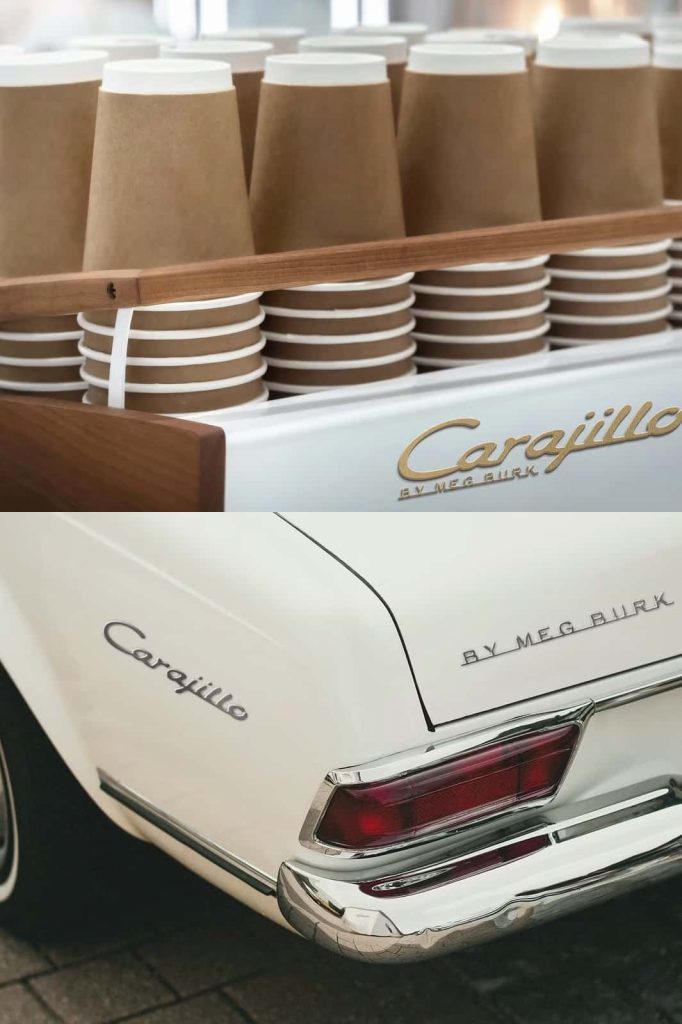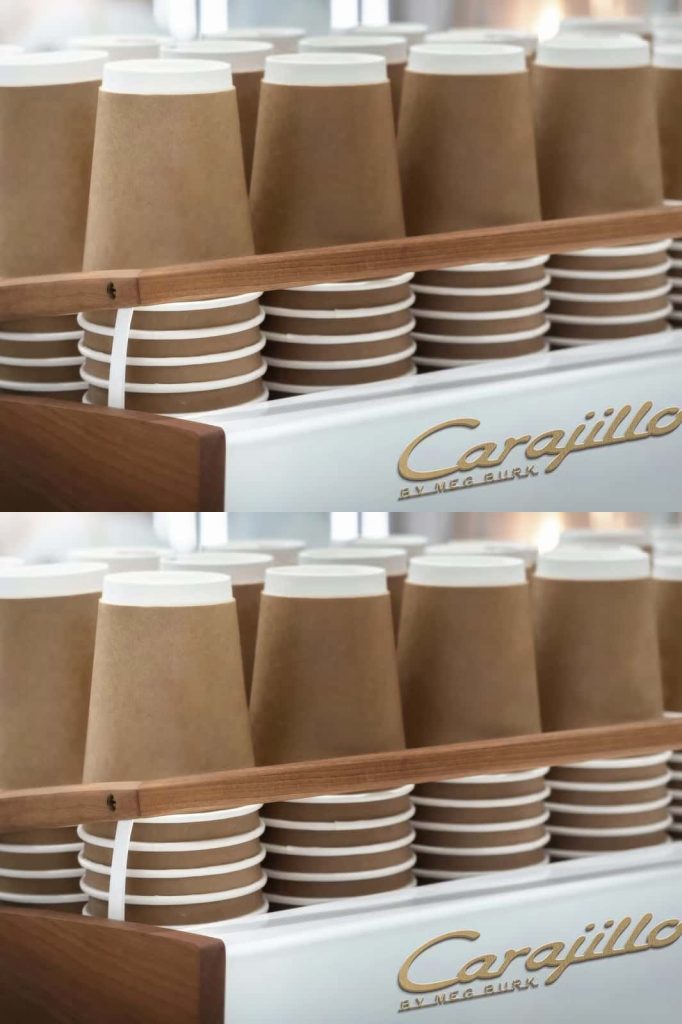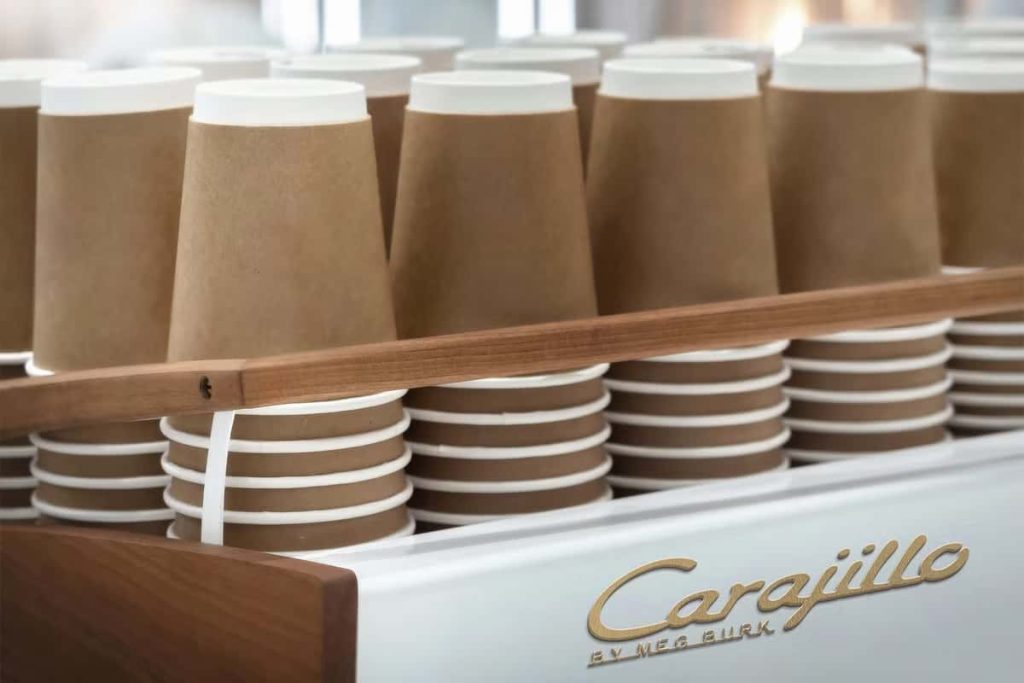
Carajillo Vintage Script Font – A Retro-Inspired Typeface for Timeless Design
Carajillo Vintage Script Font captures the essence of classic café culture and the nostalgic charm of vintage craftsmanship. Inspired by the metal nameplates found on espresso machines, this script font blends elegance, warmth, and authenticity. Each curve and flourish of Carajillo pays tribute to the intricate emblems that once defined the golden age of coffee houses and Italian design. It’s a typeface made for those who appreciate detail, style, and timeless artistry in their creative work.
Inspired by the Golden Age of Coffee Culture
Carajillo Vintage Script Font was born from a deep appreciation for the visual beauty of vintage espresso machines. From the delicate engravings on a La Marzocco to the bold lettering on classic Italian coffee brands, each machine tells a story through its typography. The designer behind Carajillo drew inspiration from these intricate metal nameplates, translating their character and craftsmanship into a digital script font that captures the same soul and sophistication.
This inspiration makes Carajillo more than just a font—it’s a love letter to design heritage. Every letterform embodies the passion and craftsmanship that once defined industrial artistry, making it a perfect fit for brands that want to convey tradition, elegance, and quality.
Elegant Handcrafted Design with Vintage Appeal
Carajillo Vintage Script Font combines smooth, flowing strokes with carefully balanced contrast to achieve a refined, handcrafted look. Its design captures the organic imperfections of classic sign-painting, resulting in a typeface that feels authentic and full of character. The letters dance gracefully across the page, reflecting the artistry of vintage engravings found on café equipment and artisanal packaging.
This handcrafted detail gives Carajillo an elegant texture that feels personal and inviting. Whether used for logos, product labels, or signage, this font adds a human touch that digital precision often lacks. It bridges the gap between old-world charm and modern usability, offering designers a typeface that feels both classic and fresh.
Perfect for Branding, Packaging, and Logo Design
The distinctive personality of Carajillo Vintage Script Font makes it ideal for creating designs that evoke heritage and sophistication. It shines in branding projects where craftsmanship and authenticity are essential. Think of café logos, artisan coffee packaging, restaurant menus, or boutique signage—the font’s elegant flow and nostalgic energy enhance every design it touches.
Use Carajillo Vintage Script Font For:
- Branding and Logos: Create memorable logos for coffee shops, bakeries, or boutique brands that exude vintage charm.
- Product Packaging: Add character to artisan food, beverage, or handmade product packaging.
- Menu and Café Design: Bring an authentic coffeehouse feel to your menu layouts and promotional materials.
- Signage and Posters: Capture attention with expressive script lettering that feels warm and timeless.
- Social Media Graphics: Design elegant and engaging posts for lifestyle brands and cafés.
- Invitations and Event Materials: Add sophistication and nostalgia to weddings, parties, and branding events.
Why Designers Love Carajillo Vintage Script
Designers are drawn to Carajillo Vintage Script Font because of its authenticity, versatility, and nostalgic energy. It’s not just a typeface—it’s a storytelling tool. The smooth, expressive curves give words a handcrafted personality that feels both sophisticated and approachable. Its vintage influences make it an excellent choice for projects seeking to evoke warmth, authenticity, and elegance.
Each character is designed with care, ensuring perfect flow and readability. The typeface is particularly well-suited for pairing with bold serif or sans-serif fonts, allowing designers to build contrast and hierarchy in their compositions. Whether creating a retro coffee label or a premium brand logo, Carajillo provides the perfect balance of artistry and professionalism.
Key Features of Carajillo Vintage Script Font
- Handcrafted Letterforms: Each letter was inspired by real metal nameplates and traditional sign typography.
- Vintage Aesthetic: Evokes the elegance of classic café and espresso culture.
- Versatile Design: Works beautifully in both print and digital design projects.
- Perfect Readability: Carefully crafted curves and strokes ensure clarity at all sizes.
- Authentic Texture: Delivers a genuine, human touch reminiscent of handcrafted lettering.
Bring Authentic Craftsmanship to Your Designs
Carajillo Vintage Script Font brings an artisanal spirit to modern design. Its origins in the world of espresso and craftsmanship make it ideal for creatives who appreciate detail, history, and quality. The font effortlessly enhances your designs, giving them personality, charm, and depth. Whether you’re working on a branding project, packaging design, or digital campaign, Carajillo ensures your typography feels intentional, elegant, and full of soul.
Let Carajillo Vintage Script Font bring warmth, authenticity, and character to your work—a perfect balance of retro beauty and modern sophistication for designers who love the art of typography.